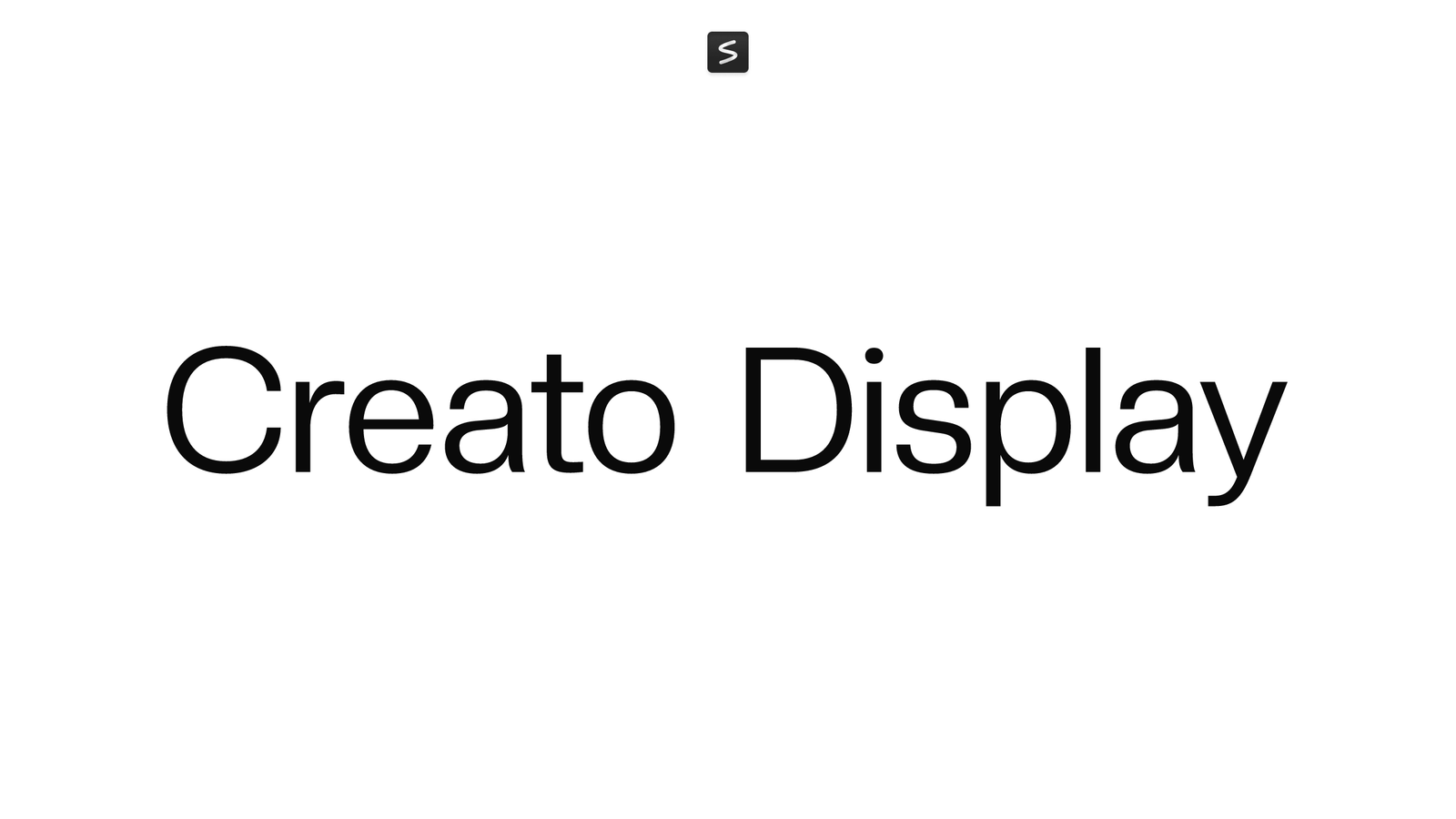
Creato Display is a geometric sans-serif designed by Anugrah Pasau. It features thin, sharp letterforms with minimal stroke contrast, built on clean angles and open counters. The design prioritizes clarity and breathing room, making it a straightforward choice for contemporary display work.
The typeface works well for headlines, branding, posters, and editorial layouts where legibility and modern simplicity matter. Its geometric precision gives it a measured, professional feel without relying on decoration. Whether for web design, packaging, or large-format print, Creato Display handles text with quiet confidence and polish.